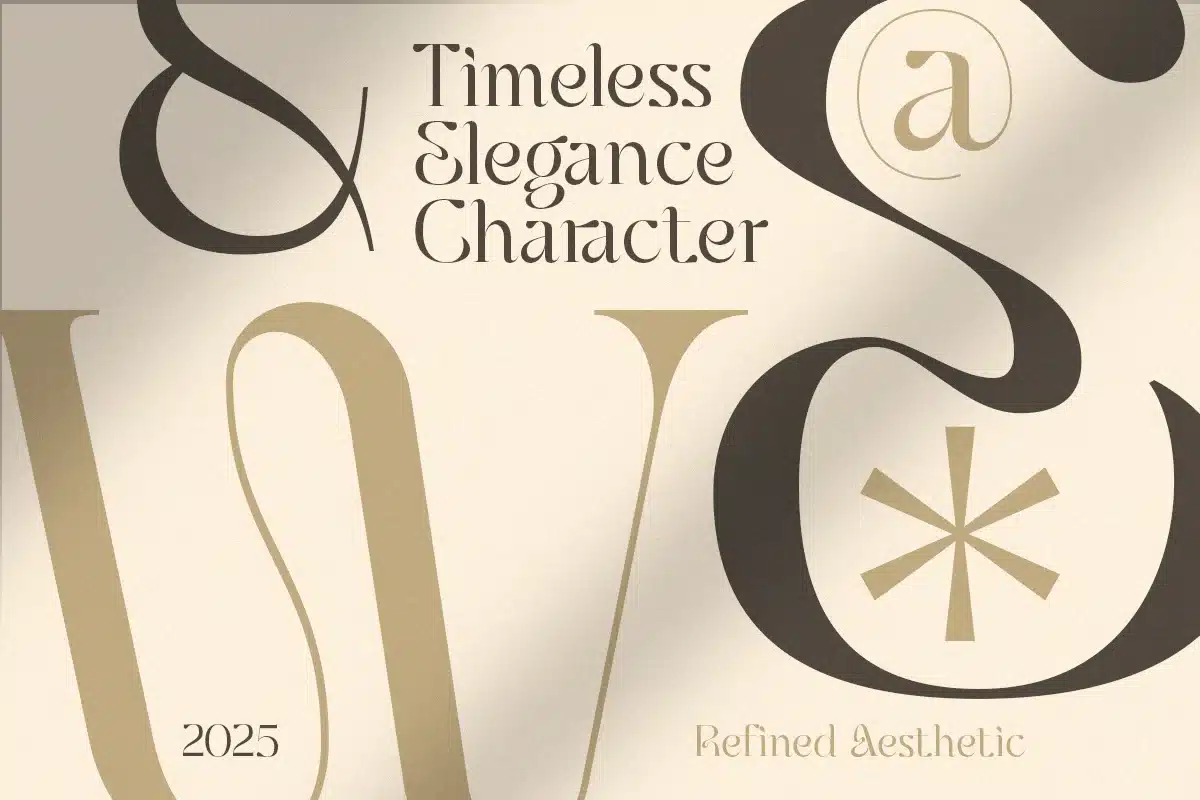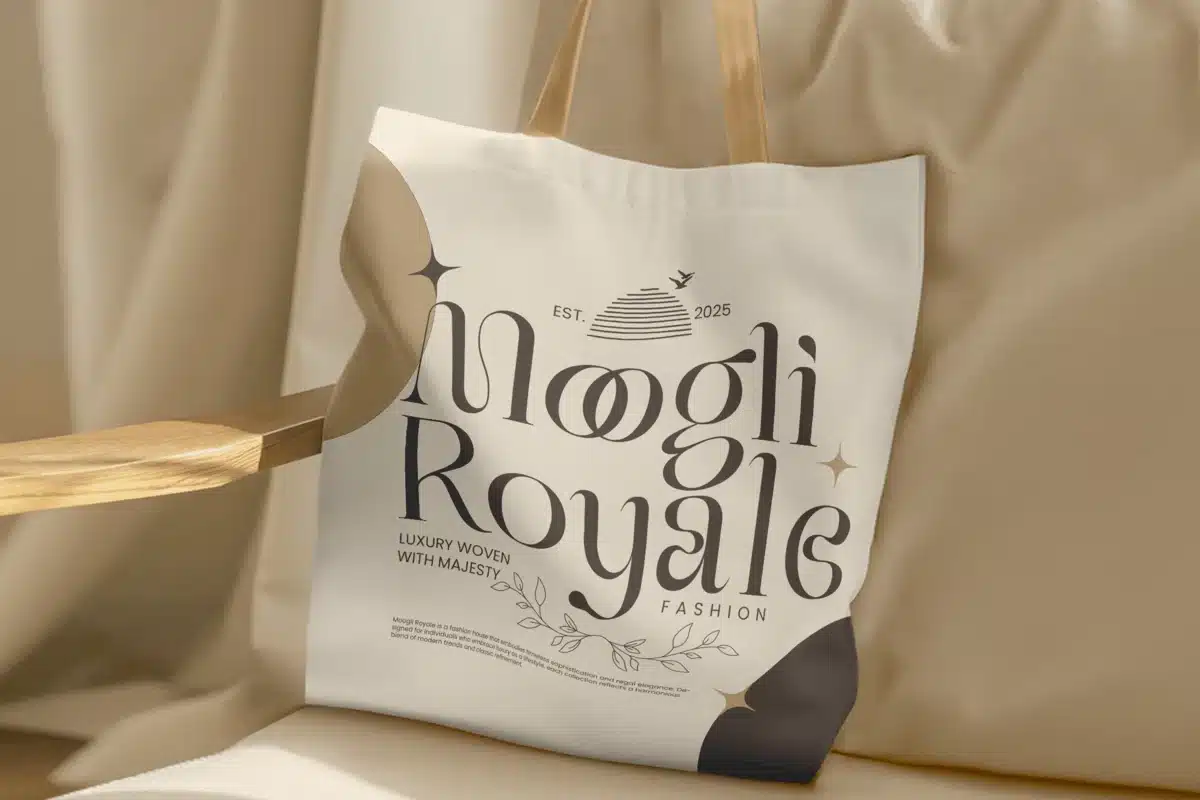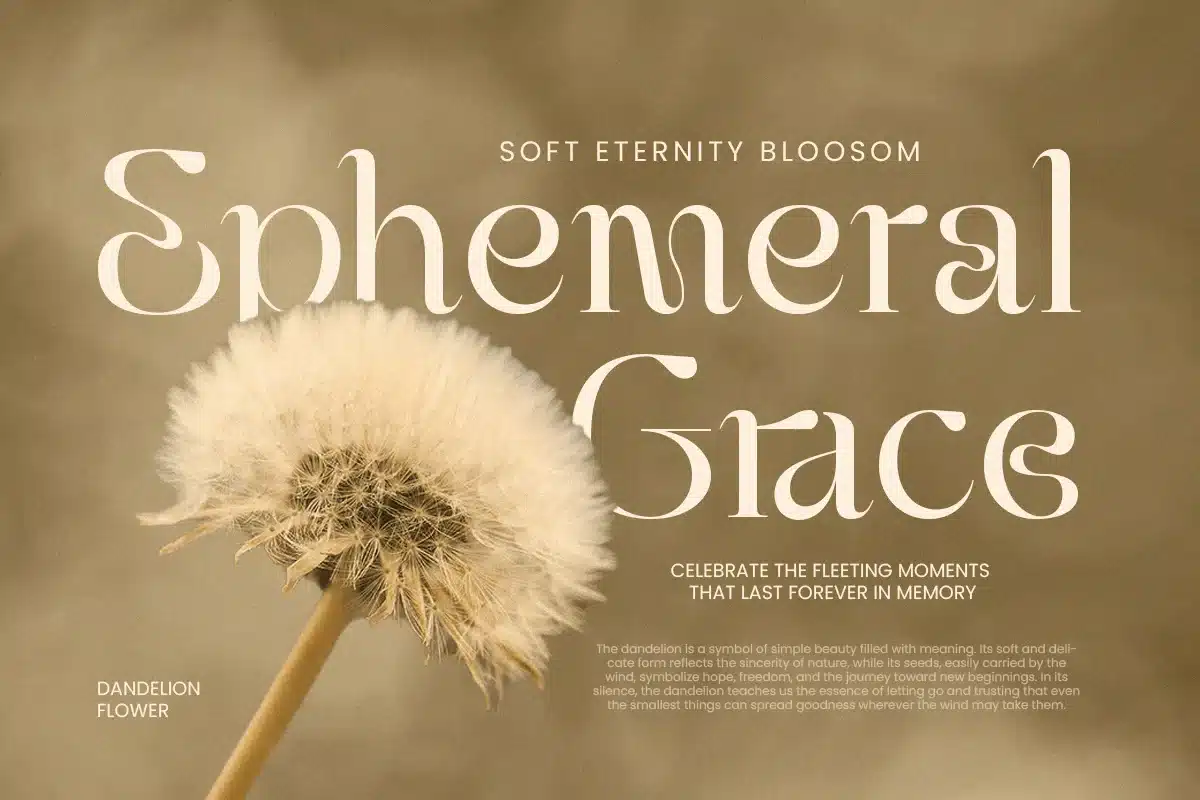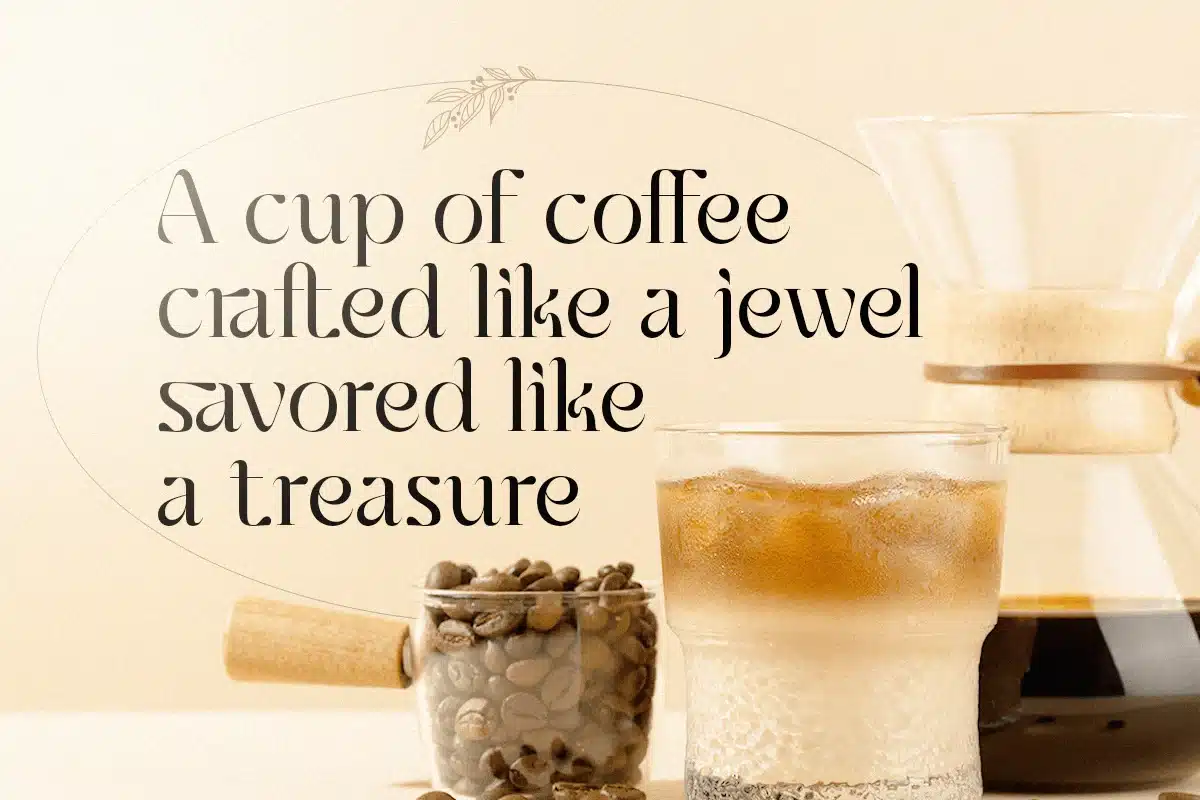
Bogale – Unique Branding Luxury Font
Bogale is a unique luxury branding font that embodies sophistication and refined style for high‑end design projects. With its carefully crafted strokes and elegant proportions, this serif typeface radiates prestige and exclusivity, making every word feel polished and timeless. Its distinct character shapes bring a bespoke sensibility that elevates luxury brand communication.
Perfect for premium branding applications, Bogale shines in logo design, fashion labels, editorial layouts, and upscale product packaging. Whether used in sleek wordmarks or expressive headlines, its luxurious personality creates an immediate impression of quality and distinction. This font’s balance of classic elegance and modern nuance makes it ideal for designers seeking a refined yet memorable typographic voice.
Bogale's versatility also extends to invitations, stationery, beauty and perfume branding, and boutique signage — anywhere a touch of sophistication and uniqueness is needed to communicate a brand’s ethos. Its graceful details and deliberate design ensure visual impact across both digital and print environments.
Bogale – Luxury Branding Font Features
- Distinctive luxury serif letterforms designed for premium branding
- Ideal for logos, fashion brand identity, and editorial design
- Elegant high‑contrast strokes with refined terminals
- Includes uppercase, lowercase, numerals, punctuation, and stylistic alternates
- Great for packaging, invitations, and boutique signage
- Works well with beauty, jewelry, and high‑end product design
- Optimized for standout headlines and refined text layouts